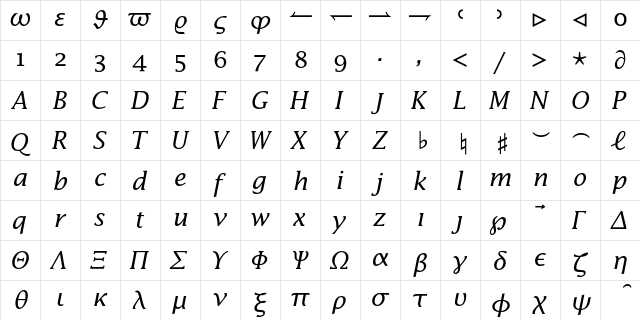
Lucida Math Italic
Design Context for Lucida Math Typeface
Lucida Math takes a measured approach to typography — its balanced proportions and neutral character make it a reliable workhorse for both digital and print work. Its italic angle brings a sense of urgency and motion to the letterforms.
Pro Tip: Use Lucida Math for emphasis, pull quotes, and subheadings where its slanted energy can add rhythm to the layout.